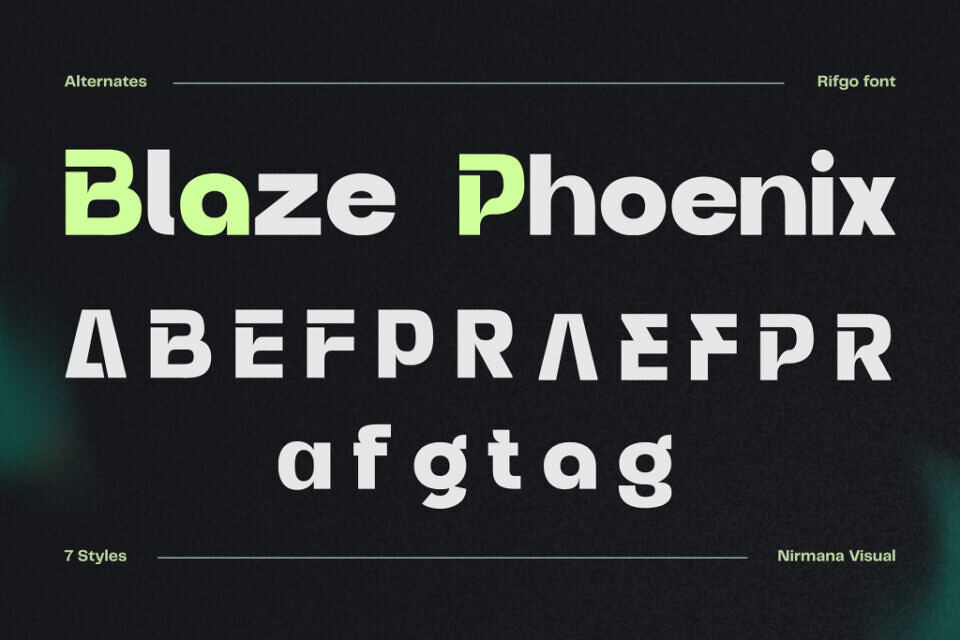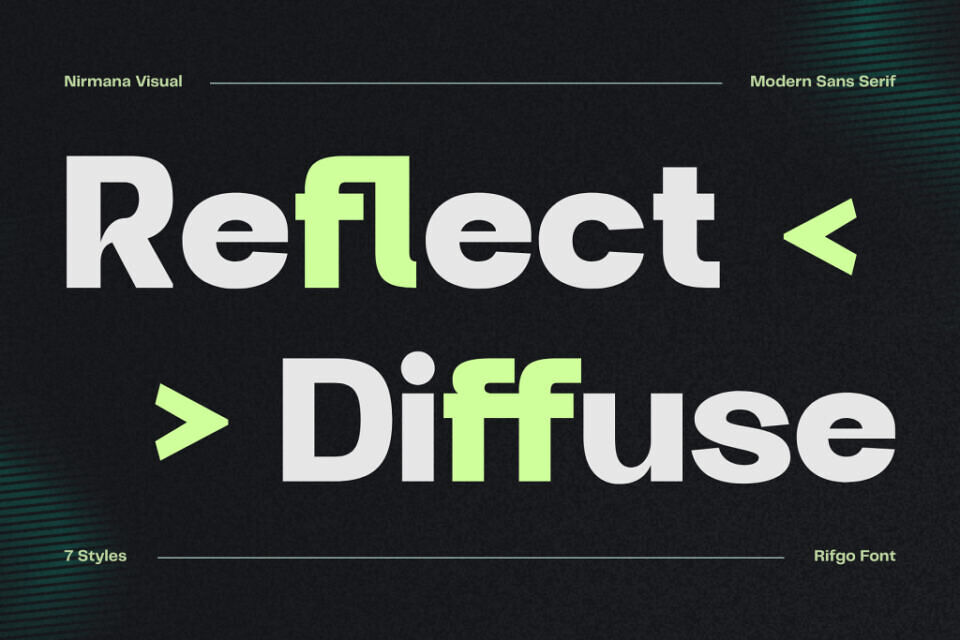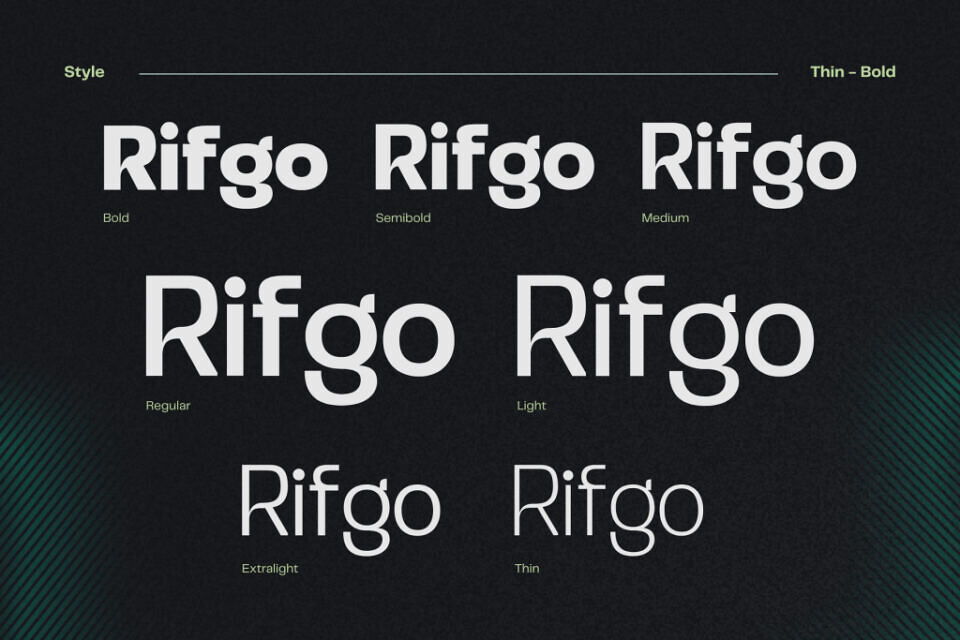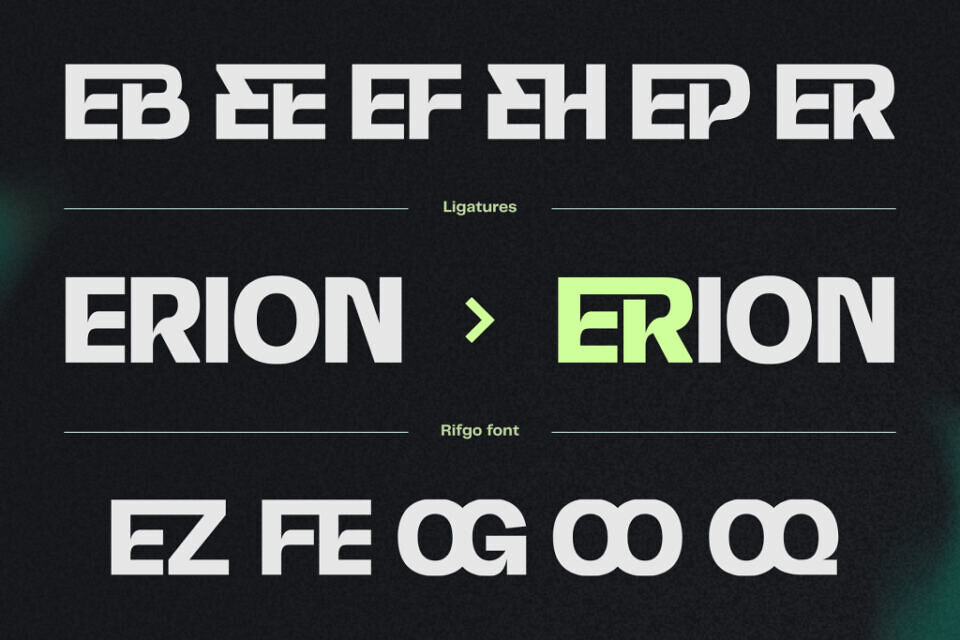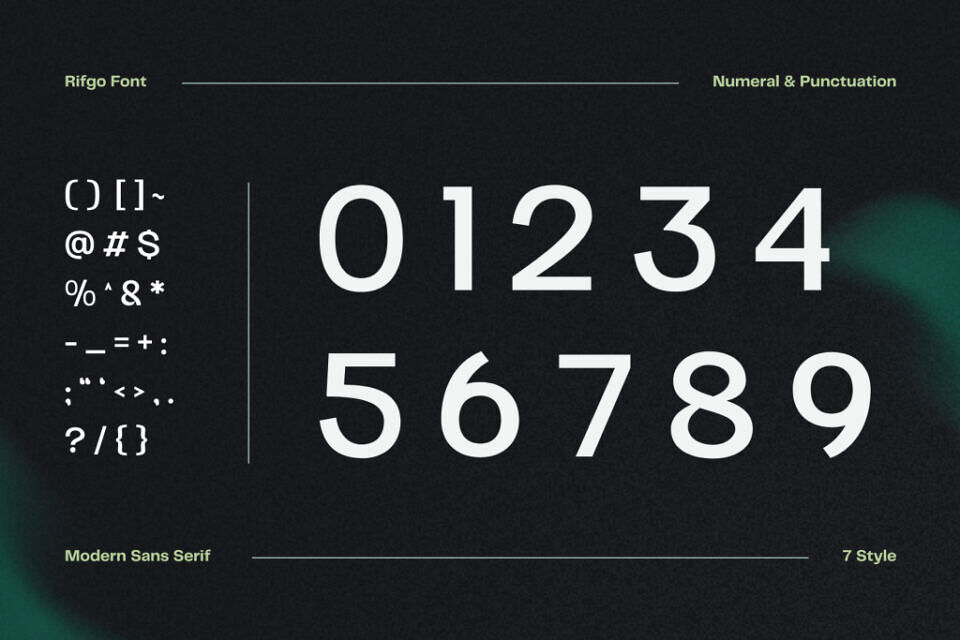
Modern Rifgo Font
Rifgo by Nirmana Visual offers beautiful typographic harmony for a diversity of design projects, including logos & branding, social media posts, advertisements & product designs.